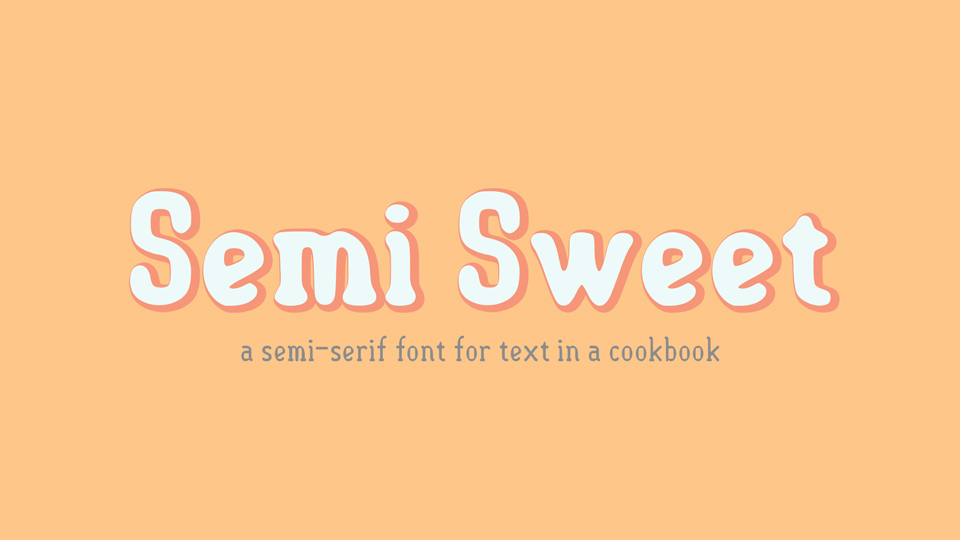
Download Semi-Sweet font, a lovely and cute semi-serif typeface created for text in a cookbook. Semi-Sweet is ideal for casual heading, bold captions, poster work, food menu and wherever a handcrafted feel is required.